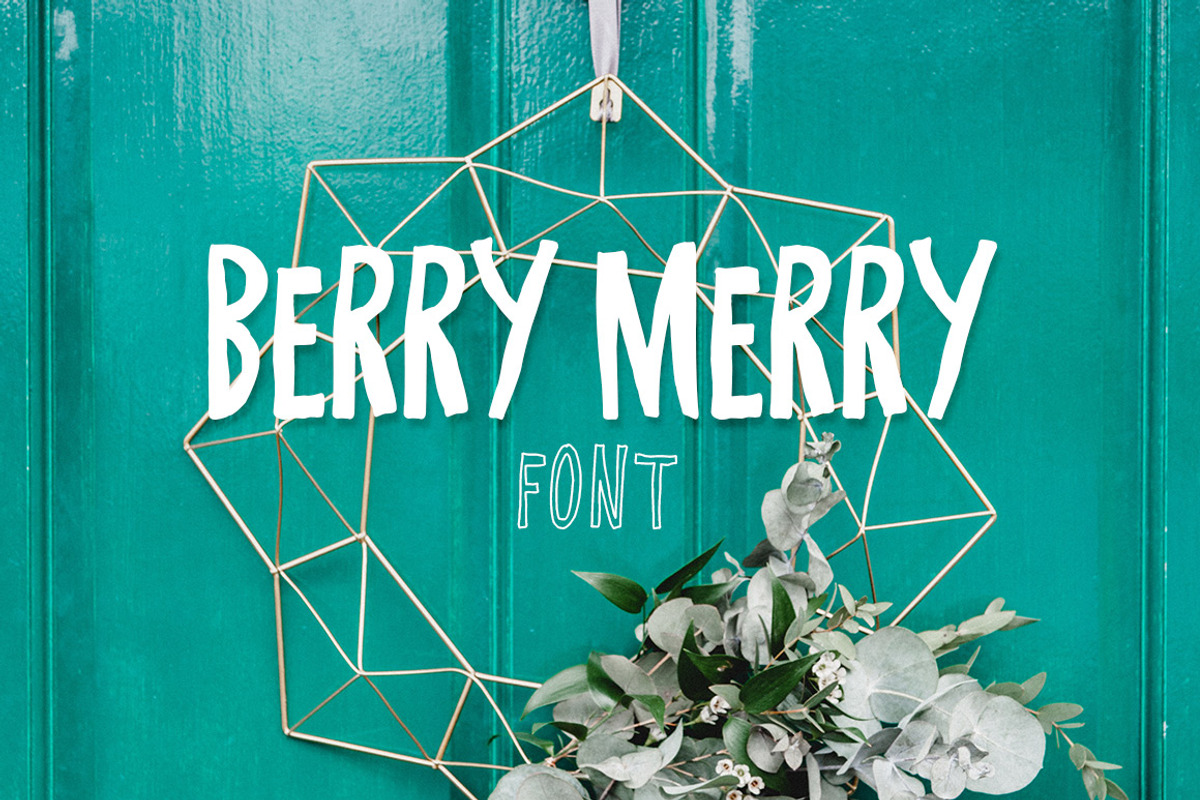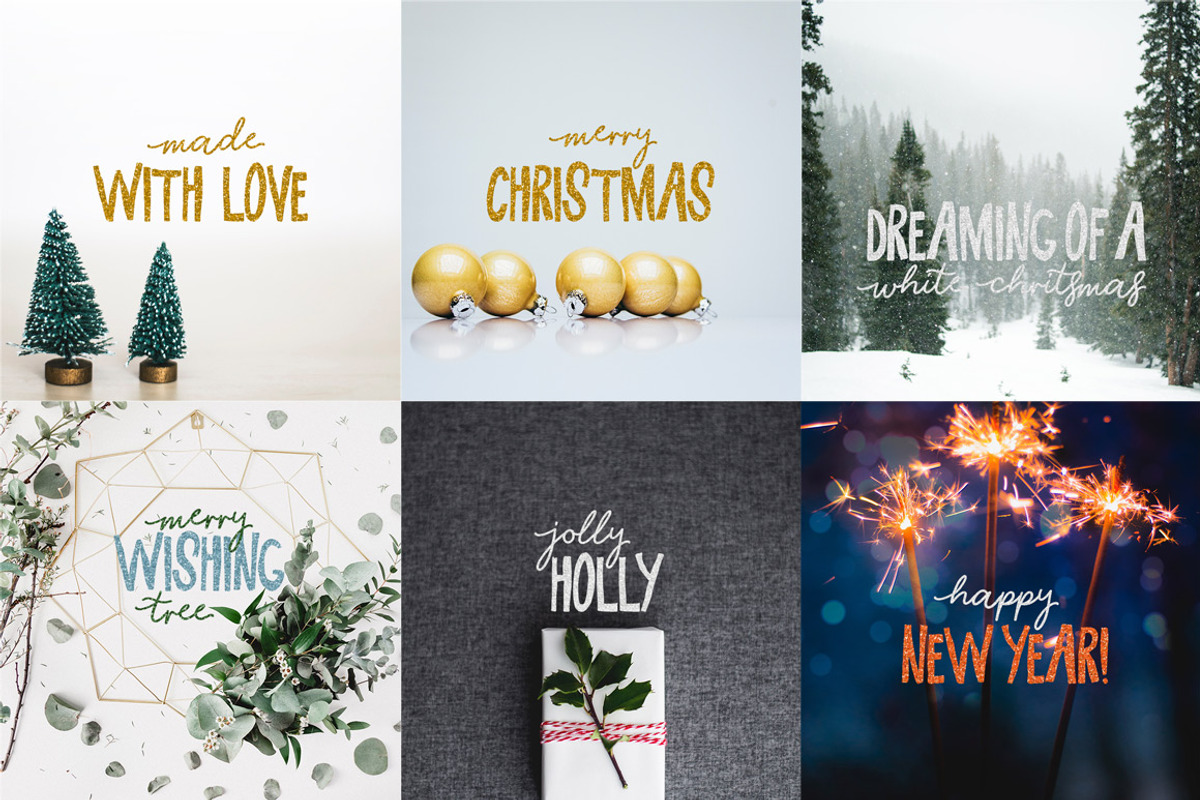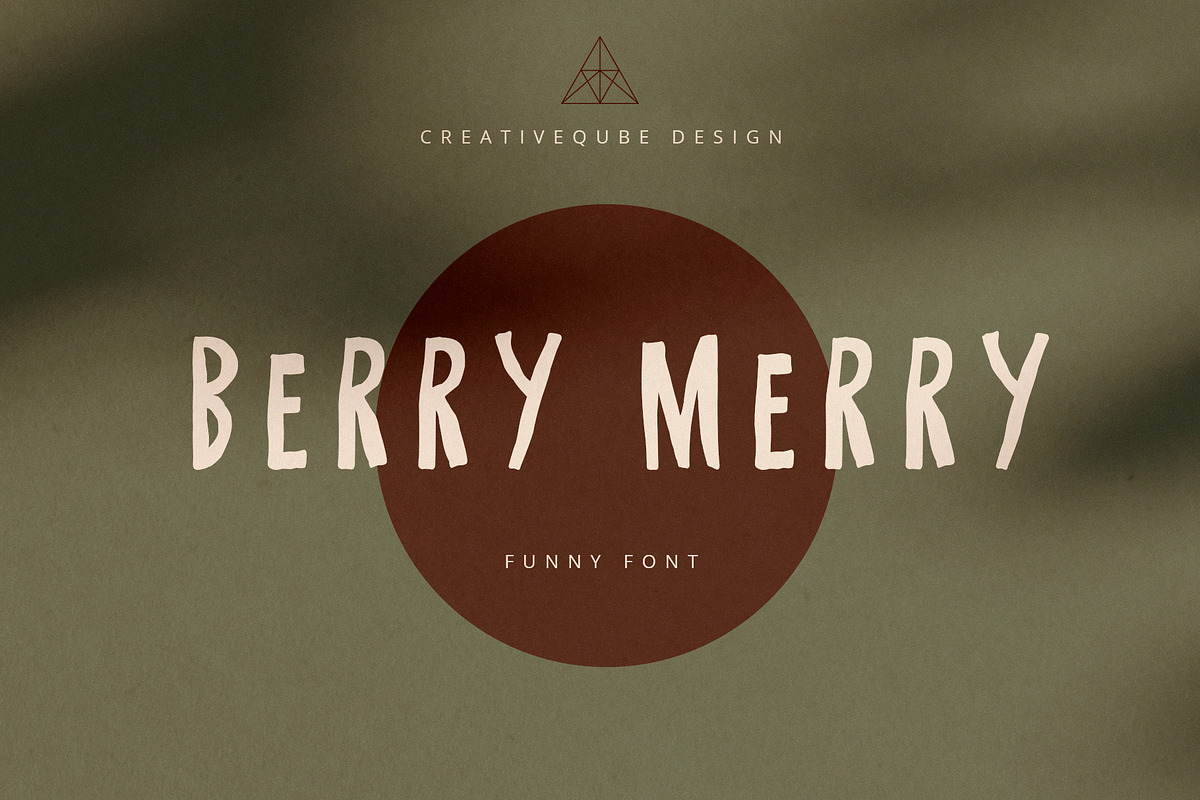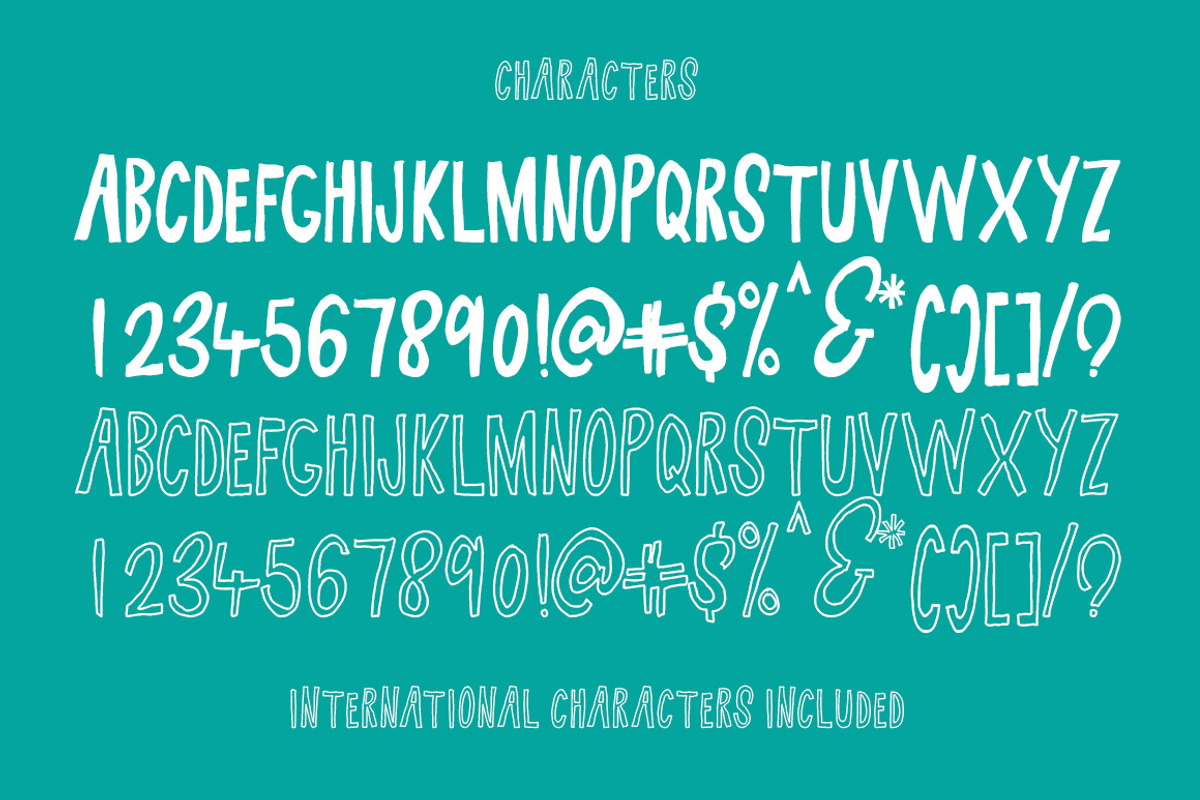
Berry Merry Font
Introducing Berry Merry Caps font
Berry Merry is a wobbly, happy all caps block font that comes in Solid and Outline.
Make fun prints, quotes, labels, invites, stationery, blog headers, book covers and much much more!
- International Characters included.
Why Berry Merry Font is worth a look
Berry Merry Font by Creativeqube Design fits naturally into Branding, posters, packaging, typography.